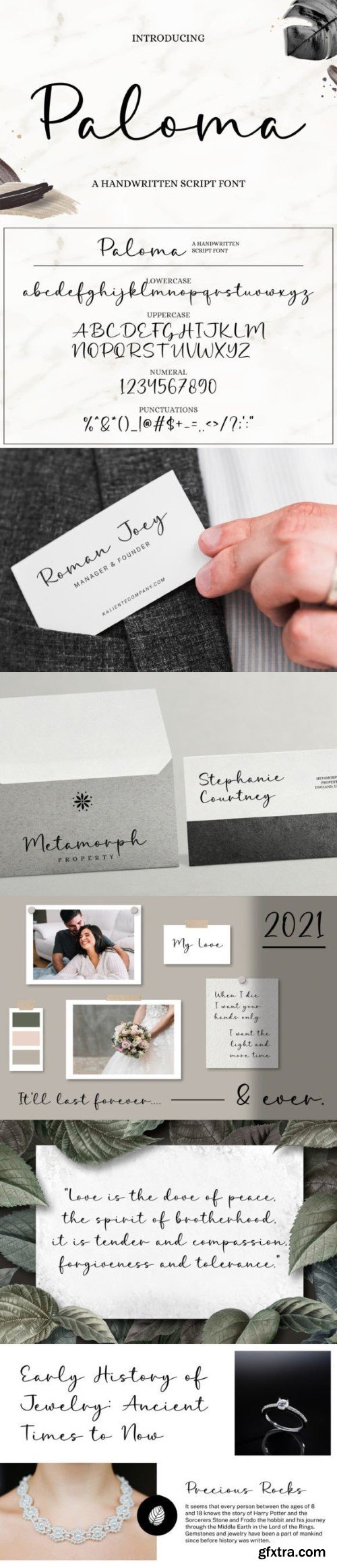
波罗玛字体
Introducing Paloma, an exquisite, harmonious script font that commands attention with its smooth curves. A true epitome of grace and balance, Paloma brings sophistication to any fashion branding or editorial aesthetic. Its seamless fusion of elegance and functionality position it as the ideal choice for rendering designs with a touch of class. With Paloma, your designs will never be short of style and elegance.